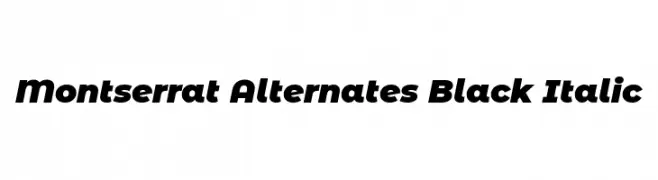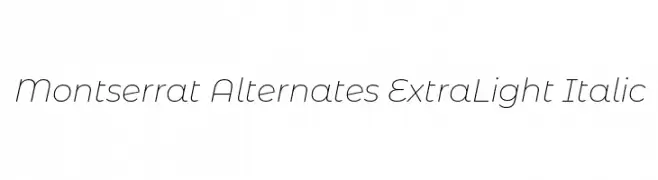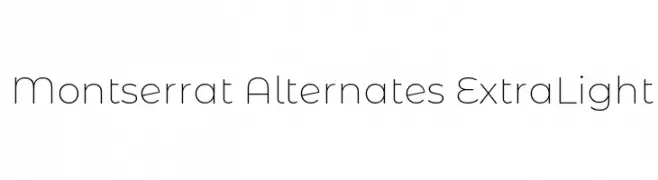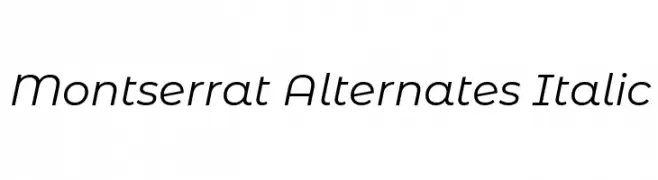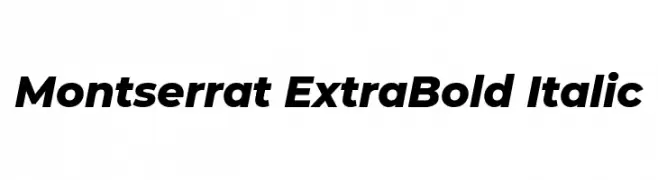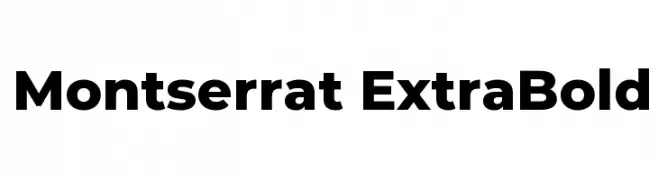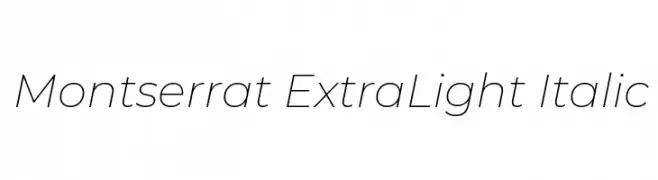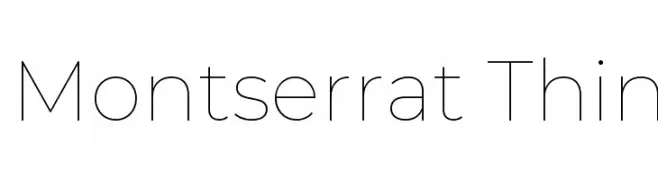
A sleek, modern font with thin, geometric lines and balanced spacing.
A bold, modern sans-serif typeface with clean lines and geometric shapes.
A sleek, modern, and italicized font with thin strokes and high legibility.
A bold, italic sans-serif font with a modern and dynamic style.
A modern, geometric sans-serif font with a clean and versatile style.
A modern, geometric font with thin strokes and balanced spacing.
A modern, italic sans-serif font with a sleek and dynamic design.
A bold, italicized modern typeface with smooth curves and a dynamic style.
A sleek, modern, extra light italic font with elegant curves and a fluid style.
A bold, italicized font with a modern and dynamic style.